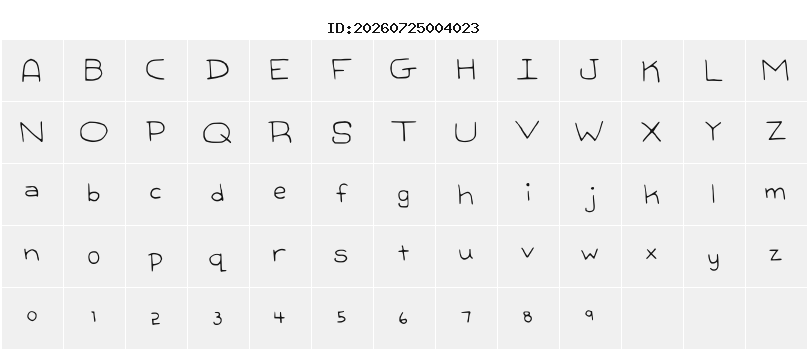
• Font Name: GreatIdea
About GreatIdea.ttf
GreatIdea.ttf is a modern, elegant sans-serif font designed for ultimate readability and visual harmony. Perfect for branding, headlines, web design, and print materials.